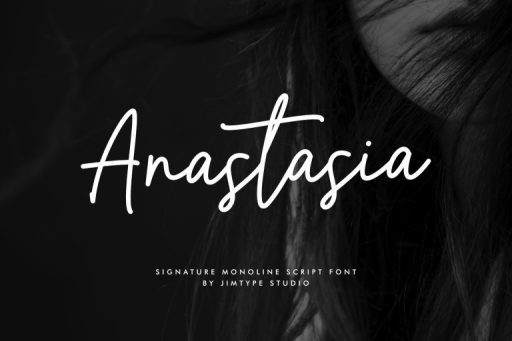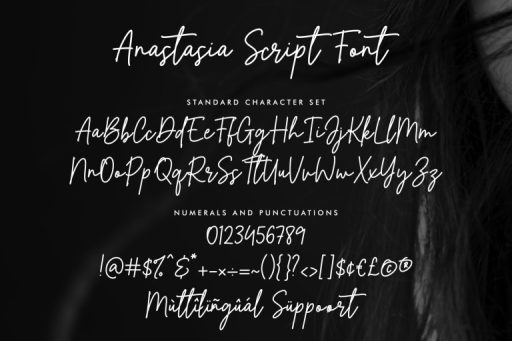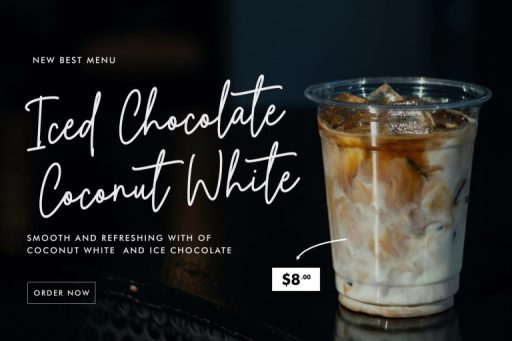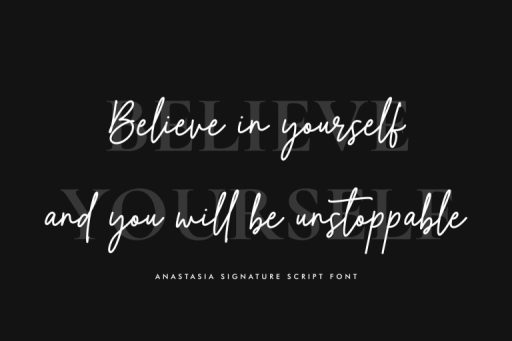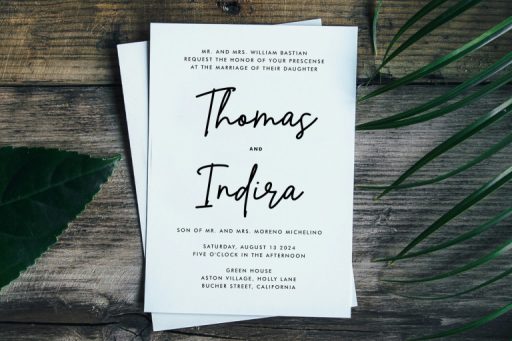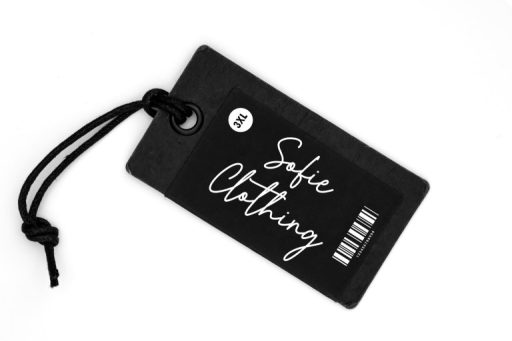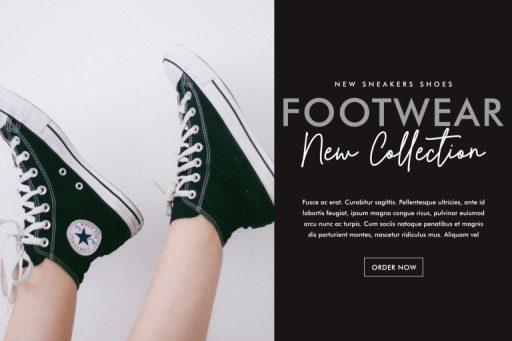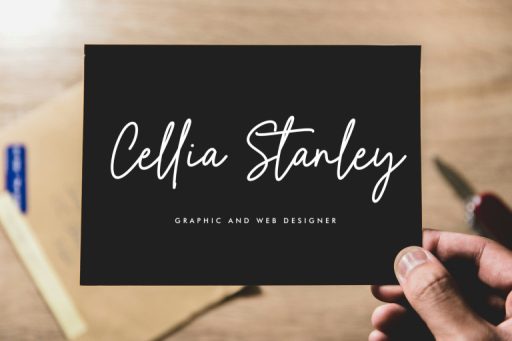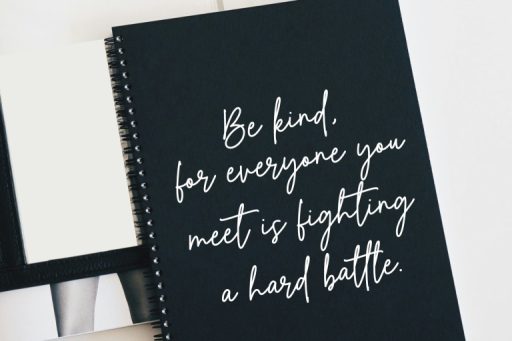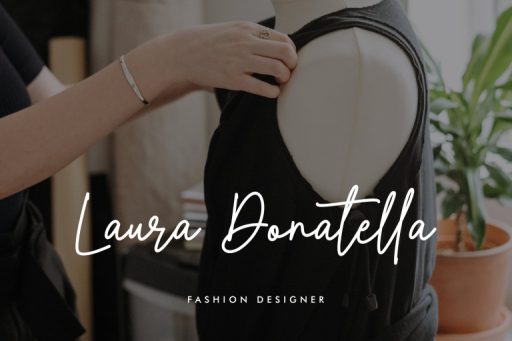
Anastasia Script Font
Anastasia Script Font – Business Branding Font from Jimtype Studio
Introducing Anastasia Script, a versatile script font designed to elevate your creative projects. Tailor-made for branding, logos, packaging, advertisements, and beyond, this font is the perfect choice for adding a touch of elegance and personality to your designs.
Elevate your brand with the distinctive charm of Anastasia Script. Whether for logos or branding materials, this font ensures a memorable and unique typographic identity that captivates your audience.
Anastasia Script Font is your go-to solution for projects that demand a blend of elegance and versatility. Whether you’re crafting a distinctive brand image, refining product presentation, or creating eye-catching advertisements, this font ensures your designs stand out with timeless charm.